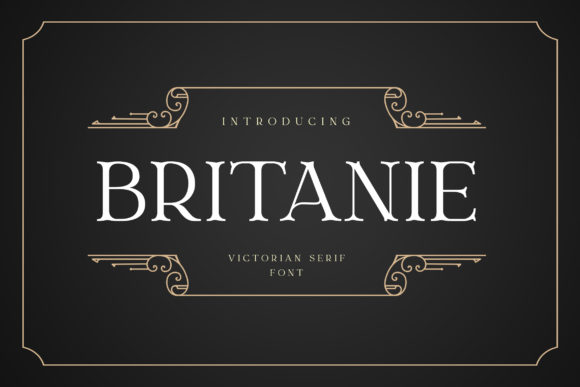
The Serif Font That Stole My Heart: A Deep Dive into Britanie Font
I still remember the day I stumbled upon the Britanie font while working on a wedding invitation project for a dear friend. I had been searching for the perfect serif font for hours, trying out different styles, but nothing seemed quite right. That was until I saw Britanie – its elegant lines and classic charm immediately caught my eye. I fell in love with its incredibly versatile style, and I knew right then and there that it was the one. In this article, I’ll share with you why Britanie font has become a staple in my design toolkit and how you can make the most of its beautiful features.
An Honest Review of Britanie Font
- ✨ Elegant and classic serif style that’s perfect for a variety of design projects
- ✅ Highly versatile, making it suitable for everything from wedding invitations to social media posts
- 💫 Beautifully crafted, with attention to detail and a clear focus on typography
- 🎨 Great for creating stunning visual content, from stationery art to eye-catching graphics
While Britanie font is an amazing addition to any design project, there are a few things to keep in mind:
- 🤔 Some users may find the font a bit too ornate for certain projects, such as body text or long-form content
- ⚠️ As with any serif font, legibility may be an issue at very small sizes or on low-resolution screens
- Experiment with OpenType features, such as ligatures and stylistic alternates, to add some extra flair to your design
- Explore the font’s glyphs and OpenType features, such as swashes and ornaments, to add some extra visual interest to your design
The Story Behind Britanie Font
Britanie font was designed with the intention of creating a beautiful, versatile serif font that could be used for a wide range of design projects. The designer, inspired by classic typography and elegant lines, crafted Britanie with attention to detail and a focus on typographic excellence. The result is a font that’s both timeless and trendy, perfect for designers, crafters, and creative hobbyists alike.
| Is Britanie font suitable for body text? | While Britanie font is beautiful and elegant, it may not be the best choice for long-form body text. However, it’s perfect for headings, titles, and other large-format text. |